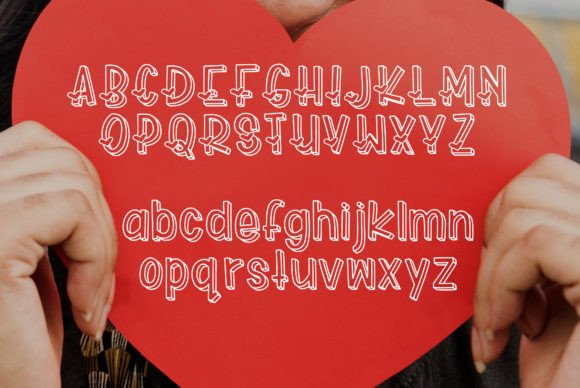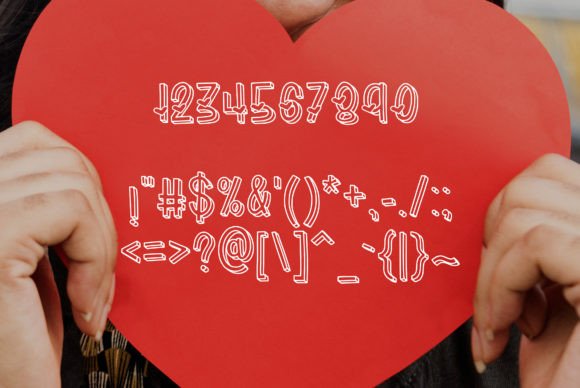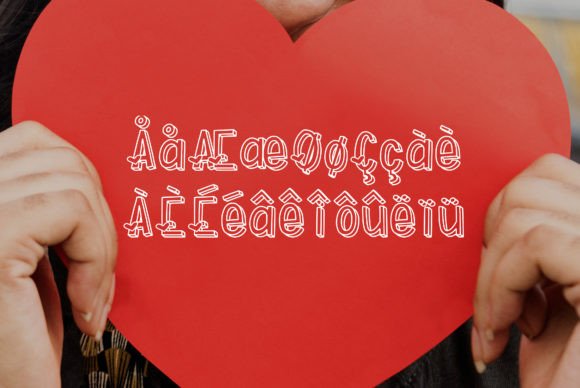
Meet Bae Mine Font: The Ultimate Choice for Heartwarming Designs
In the world of typography, fonts play a crucial role in conveying emotions and adding personality to designs. If you’re looking for a font that exudes love, playfulness, and charm, then Bae Mine Font is the perfect match for you! This lovable, boxed font is designed to bring a touch of warmth and sweetness to your projects, making it ideal for Valentine’s Day cards, invitations, and any design that needs a sprinkle of love.
The Charm of Bae Mine Font
Bae Mine Font is a unique and adorable font that boasts playful strokes and cute little heart accents. Its distinctive design makes it stand out from other fonts, adding a charming touch to any project. The font’s boxed style gives it a retro feel, while the heart accents add a modern and playful twist. Whether you’re creating designs for a special someone or just spreading some love, Bae Mine Font is sure to steal your heart!
Perfect for Heartwarming Designs
Bae Mine Font is specifically designed for designers and crafters who want to create heartwarming designs that capture the essence of love and affection. The font’s playful and charming style makes it perfect for:
- Valentine’s Day cards: Add a touch of romance and love to your Valentine’s Day cards with Bae Mine Font.
- Sweet invitations: Create adorable invitations for baby showers, bridal showers, or birthday parties that will melt the hearts of your guests.
- Love-themed designs: Use Bae Mine Font to create stunning designs for social media, blogs, or websites that celebrate love and relationships.
Why Choose Bae Mine Font?
With so many fonts available, why choose Bae Mine Font? Here are just a few reasons why Bae Mine Font stands out:
- Unique design: Bae Mine Font boasts a unique and adorable design that will set your projects apart from the rest.
- Playful and charming: The font’s playful strokes and heart accents add a charming touch to any design.
- Versatile: Bae Mine Font can be used for a wide range of projects, from digital designs to print materials.
- Pair with complementary fonts: Pair Bae Mine Font with complementary fonts to create a stunning contrast.
- Experiment with colors: Try out different colors to find the perfect match for your design.
- Add graphics and illustrations: Add graphics and illustrations to enhance your design and make it more visually appealing.
In conclusion, Bae Mine Font is a lovable and charming font that’s perfect for designers and crafters who want to add a touch of love and warmth to their projects. With its playful strokes and cute little heart accents, this font is sure to steal your heart and make your messages stand out in the most adorable way. Whether you’re crafting for someone special or just spreading some love, Bae Mine Font is your perfect match!